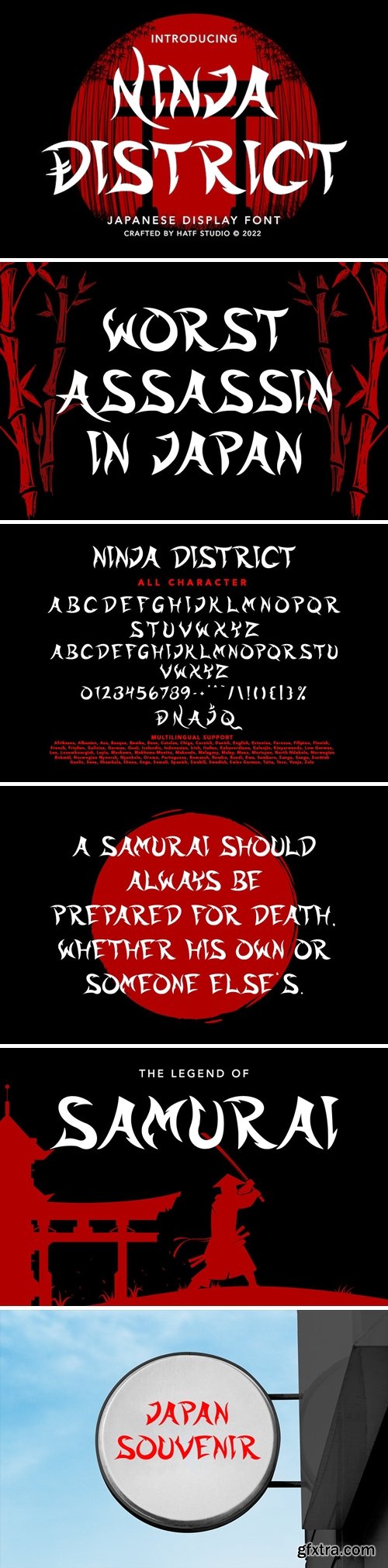
Ninja District Font
Is a font with japanese style. With distinctive handwritten characters perfect for branding projects, logos, wedding designs, media posts, advertisements, product packaging, product designs, labels, photography, watermarks, invitations, stationery, and any project who need handwritten dishes.